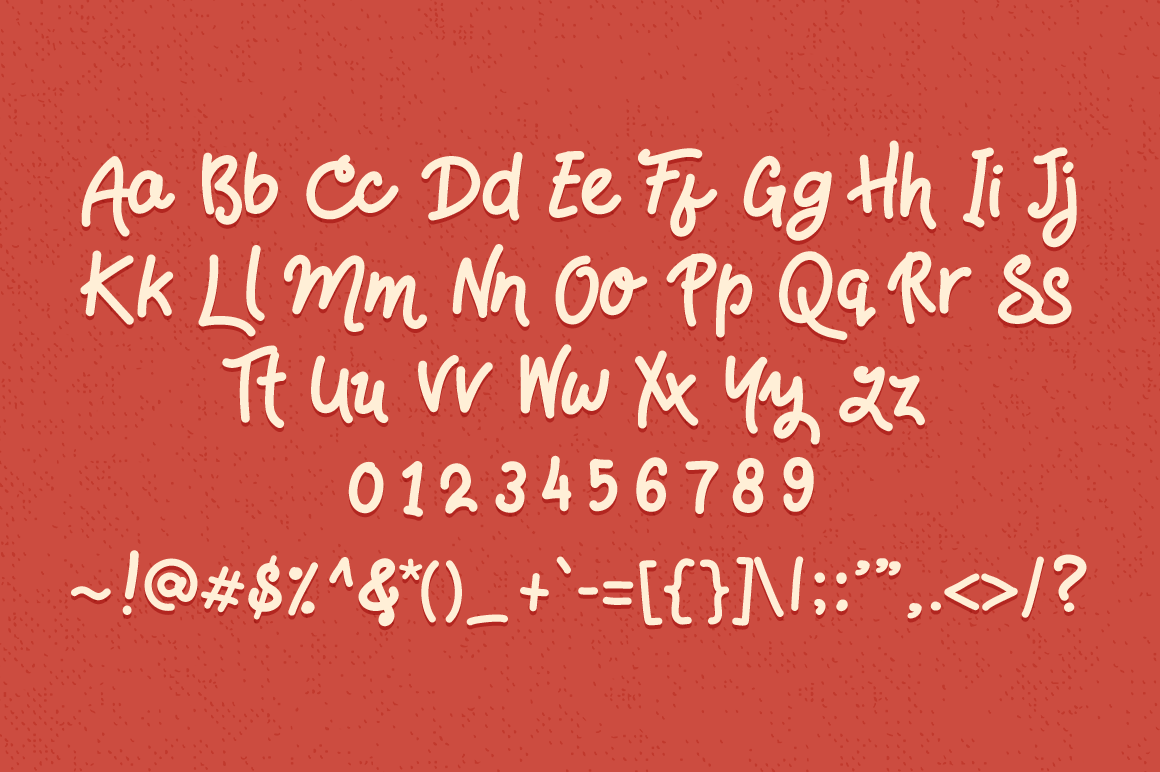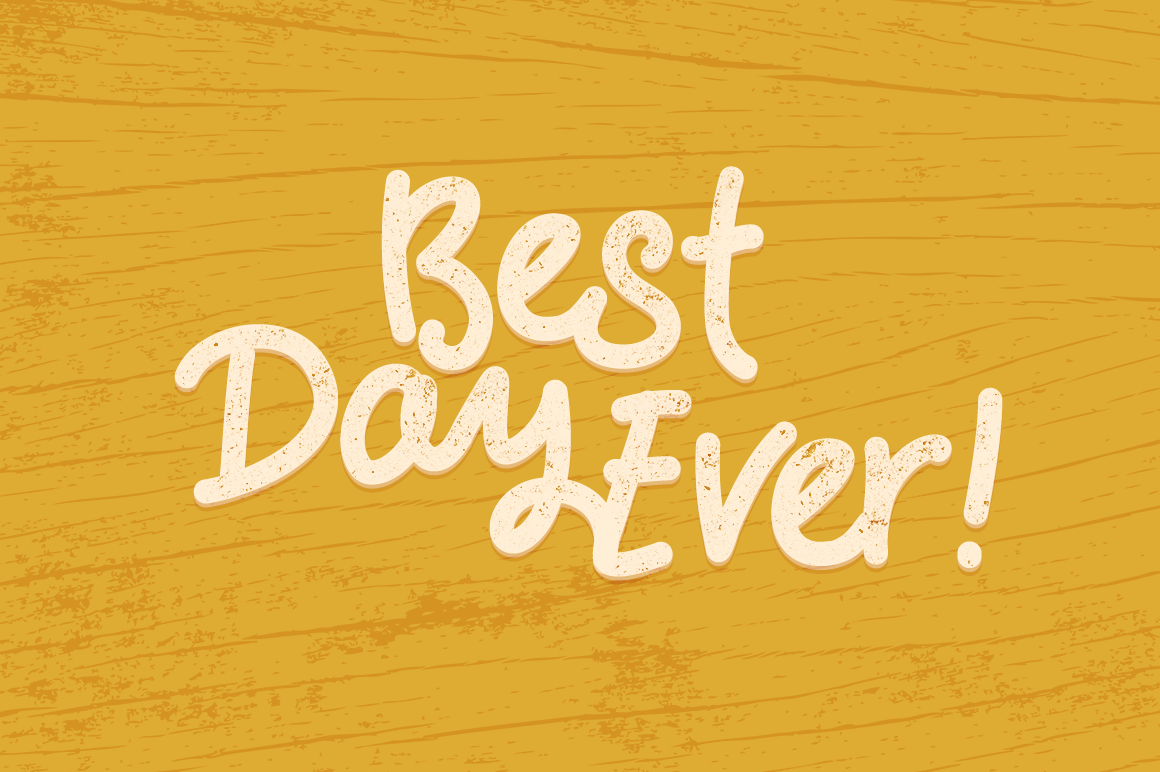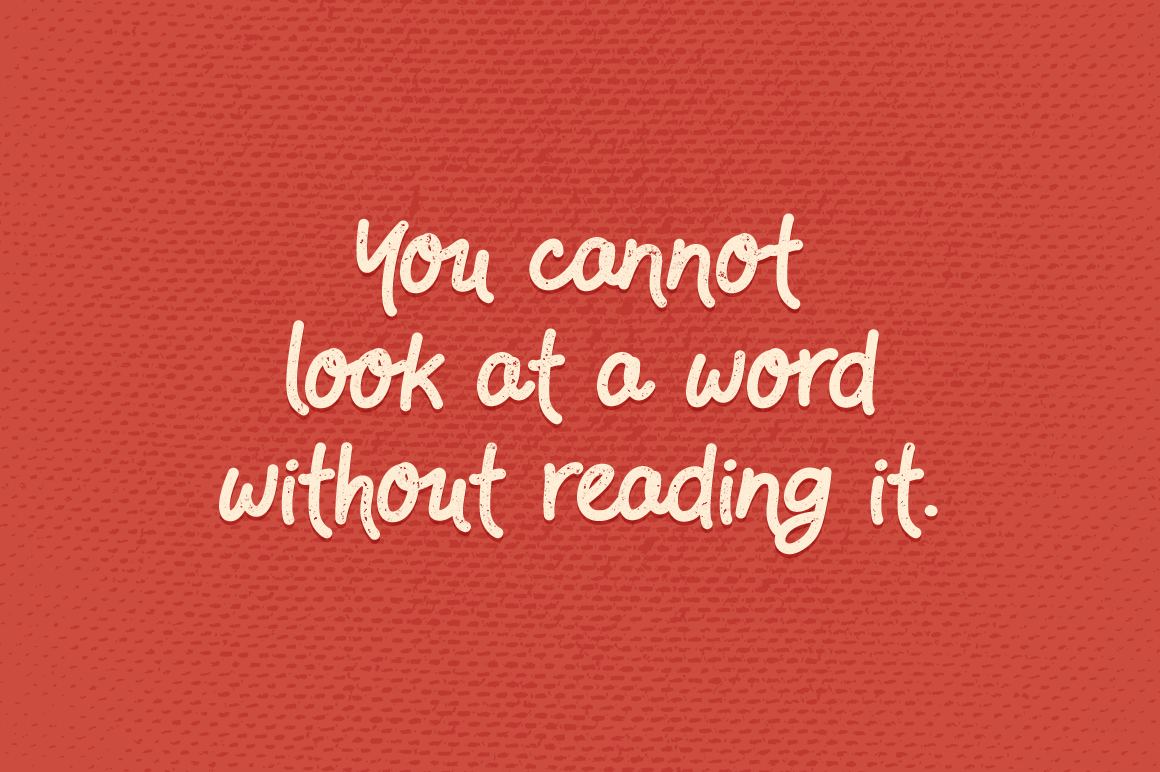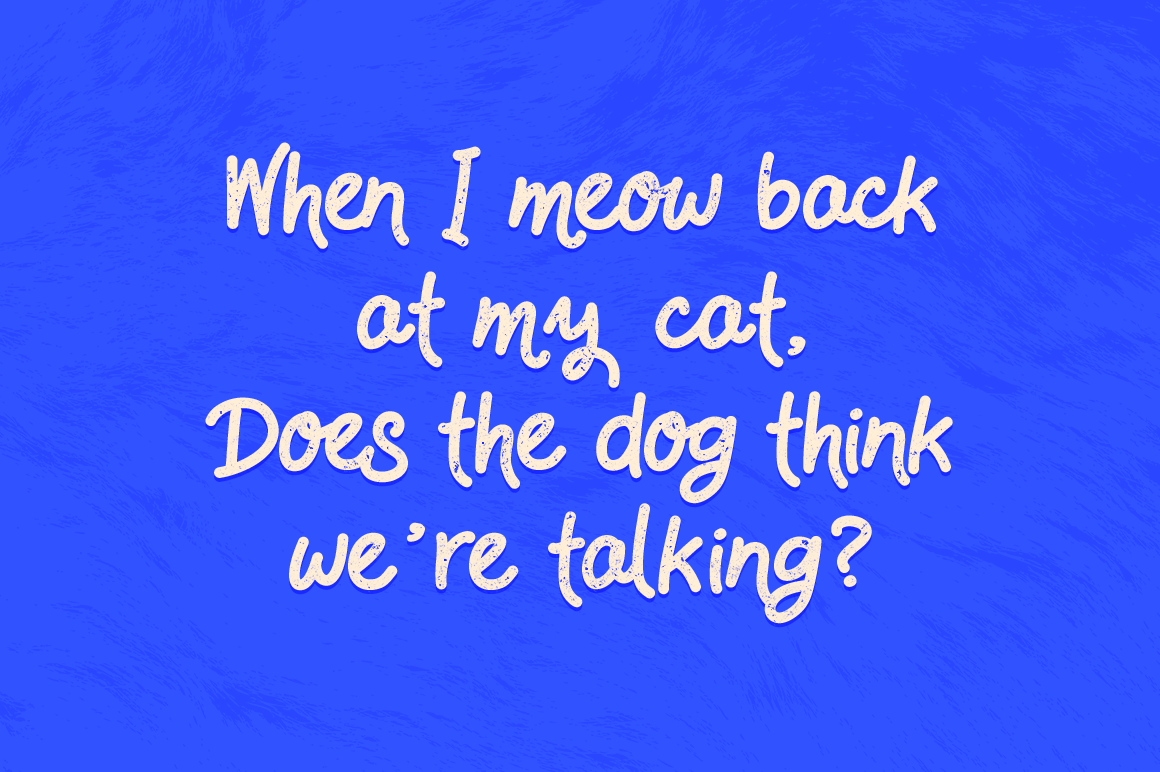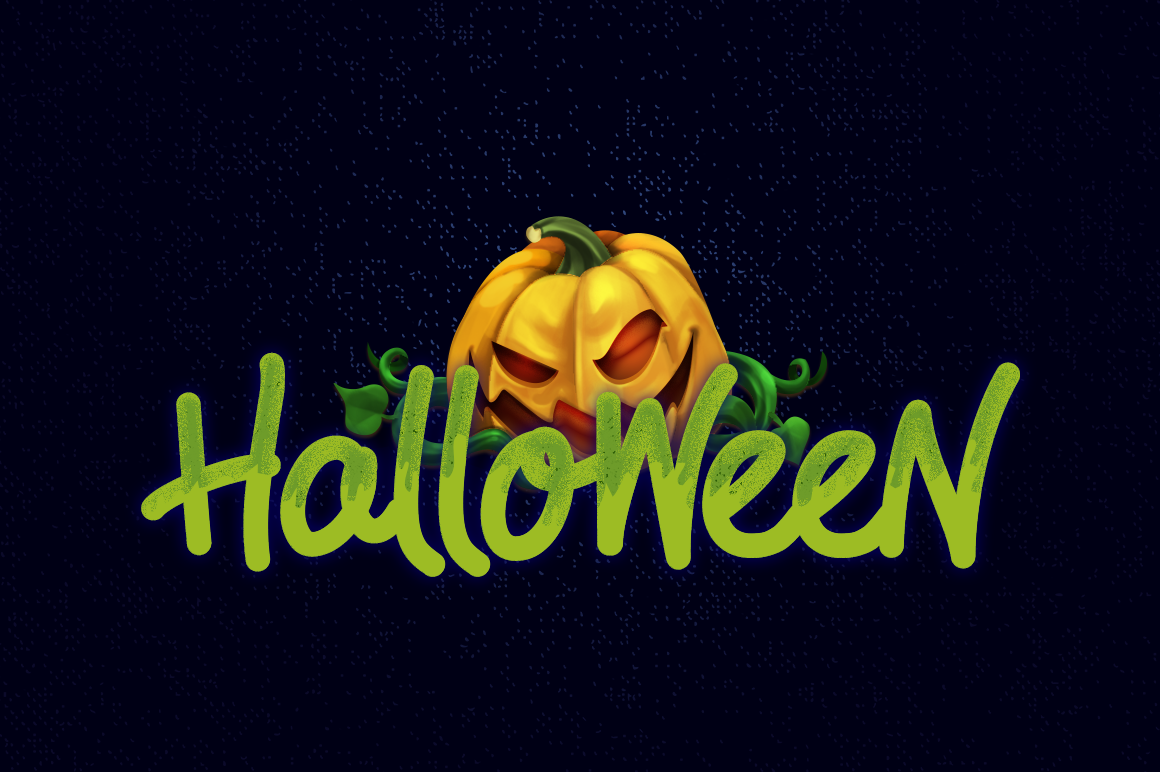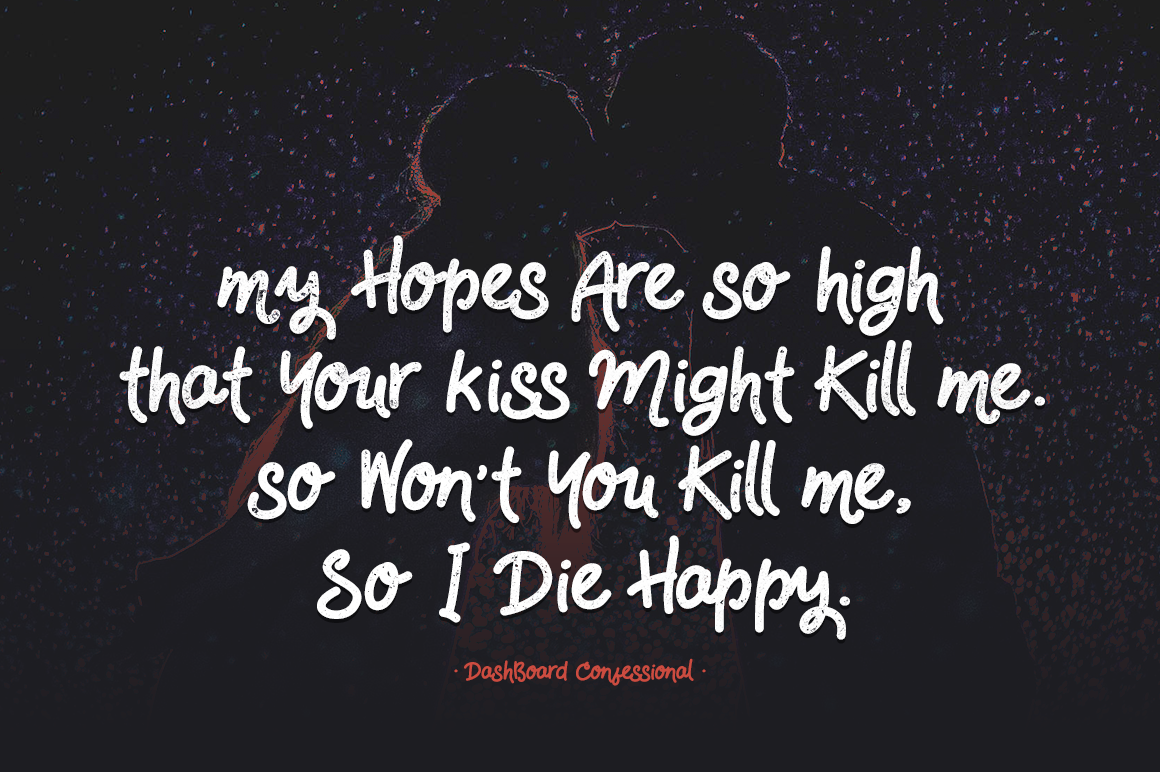
Introduction to Hands Down Font
As designers, we’ve all been there – stuck in a creative rut, searching for that one elusive font to bring our project to life. For me, it was the song “Hands Down” by Dashboard Confessional that sparked the idea for the Hands Down Font. Its simplicity and emotional resonance inspired me to create a font that would be just as heartfelt.
With the Hands Down Font, I aimed to craft a design resource that would be both accessible and high-quality. The result is a beautiful, hand-crafted font with a transparent background, perfect for adding a touch of elegance to any creative project. As a free download, it’s an invaluable asset for designers looking to elevate their work without breaking the bank.
Whether you’re working on a personal project or a client-based design, the Hands Down Font is sure to be a valuable addition to your toolkit.
Key Features of Hands Down Font
- High-quality, professional font perfect for creative projects and design resources
- Includes a transparent background, ideal for use on logos, icons, and other design elements
- Large character set with over 200 glyphs, making it suitable for a wide range of languages and applications
- Resolution: 300 DPI, ensuring crisp and clear text at high zoom levels
- Font size: supports font sizes from 8 to 1000 points, providing flexibility for various design needs
- Unique, modern design with a clean and minimalist aesthetic, making it a great choice for creative projects
Honest Review: Hands Down Font
I recently stumbled upon the Hands Down Font and was excited to give it a try. As a designer, I’m always on the lookout for high-quality design resources to elevate my creative projects.
One thing I appreciate about this font is its versatility. It’s perfect for both digital and print designs, and its transparent background makes it easy to customize and combine with other elements. ✨
Here are some key features that stood out to me:
- High-quality design with clean lines and elegant typography
- Perfect for creative projects, such as logos, branding materials, and digital graphics
However, I did encounter a few limitations. ⚠️ The font can be a bit too ornate for some designs, and the weight options could be more extensive. Additionally, the font family is relatively small, which may limit its suitability for larger-scale projects.
Overall, I’d say the Hands Down Font is a solid choice for designers looking for a high-quality, versatile font. While it may not be perfect for every project, it’s definitely worth considering for your next creative endeavor.
How to Use Hands Down Font
The Hands Down Font is a free download that offers a high-quality, transparent background design resource perfect for creative projects. This versatile font can be used in various applications, including digital and print media.
Using Hands Down Font in PowerPoint/Word
In PowerPoint and Word, you can import the font file and apply it to your text. This is ideal for creating presentations, reports, or documents that require a professional and creative touch.
Tips for Getting the Most Out of Hands Down Font
Some tips for getting the most out of the Hands Down Font include experimenting with different font sizes, colors, and combinations to create unique designs. Additionally, consider using the font in conjunction with other design elements, such as graphics or images, to enhance your creative project.
The Hands Down Font is suitable for a variety of creative projects, including social media graphics, presentations, posters, and documents. It’s also a great option for designers who want to add a professional and creative touch to their designs without breaking the bank.